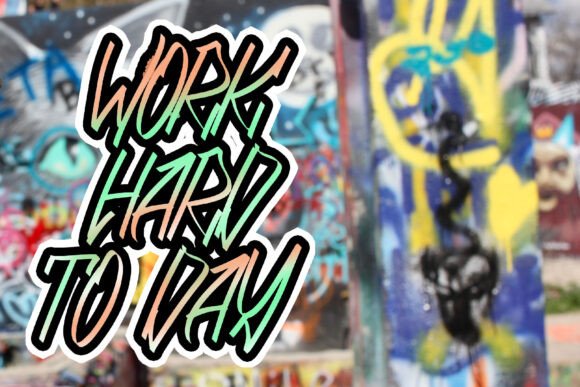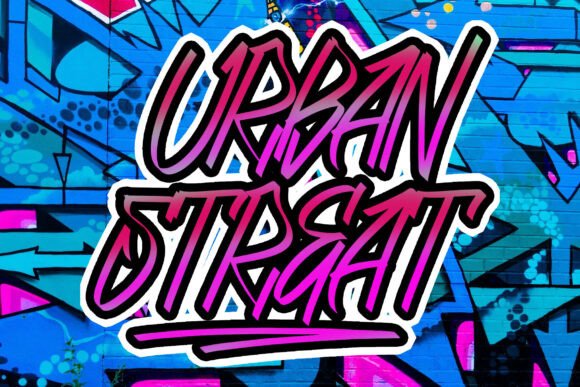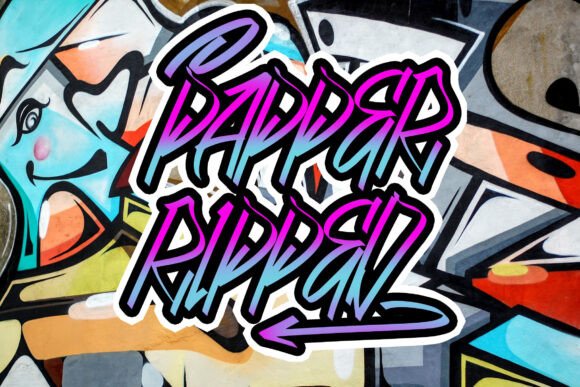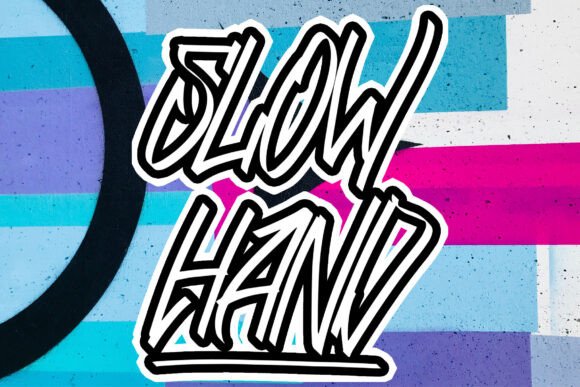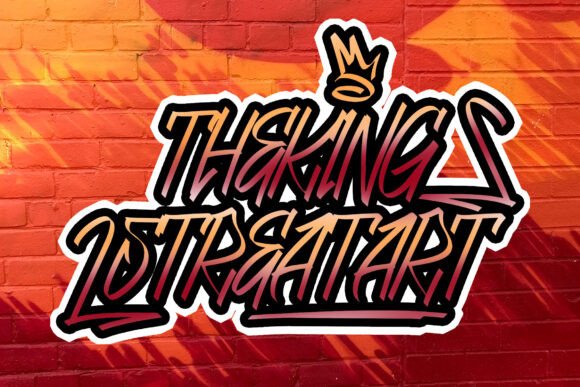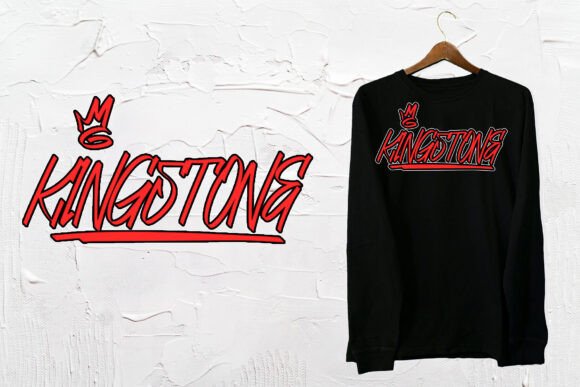
Unleash Creativity with AMEKO: The Bold Hand-Brush Font
I’ll never forget the design project that had me stuck in a font rut. I was working on a branding campaign for a local artisan bakery, and I just couldn’t find the right font to capture their warm, handcrafted vibe. That was until I stumbled upon AMEKO, a bold hand-brush font that instantly elevated my design game. In this article, I’ll share my experience with AMEKO, its unique features, and how to make the most of it in your creative projects.
An Honest Review of AMEKO
What I Love About AMEKO ✨
- Unique, expressive character shapes that add an authentic touch to any design
- Dynamic and versatile style, perfect for a wide range of applications, from branding to posters and packaging
- Easy to read, even in larger sizes, making it ideal for headlines and titles
- Supports OpenType features, allowing for advanced typographic control
While AMEKO is an excellent font, it’s not without its quirks. For instance:
- Some characters may require manual kerning for optimal spacing
- Limited language support, primarily suited for English and other Western languages
- Not ideal for body text or lengthy paragraphs, as it’s best suited for headlines and titles
The Story Behind AMEKO
AMEKO was designed with the creative professional in mind. Its creator, a passionate typographer, aimed to craft a font that would bring a touch of authenticity and handcrafted charm to any design project. Inspired by traditional brush-lettering techniques, AMEKO combines modern style with classic flair.
Q: What type of projects is AMEKO best suited for?
AMEKO is perfect for creative projects that require a bold, hand-brush font, such as branding, posters, packaging, and more.
Q: Does AMEKO support OpenType features?
Yes, AMEKO supports OpenType features, allowing for advanced typographic control and customization.
Q: Is AMEKO suitable for body text or lengthy paragraphs?
No, AMEKO is best suited for headlines and titles. For body text or lengthy paragraphs, consider using a more traditional font.